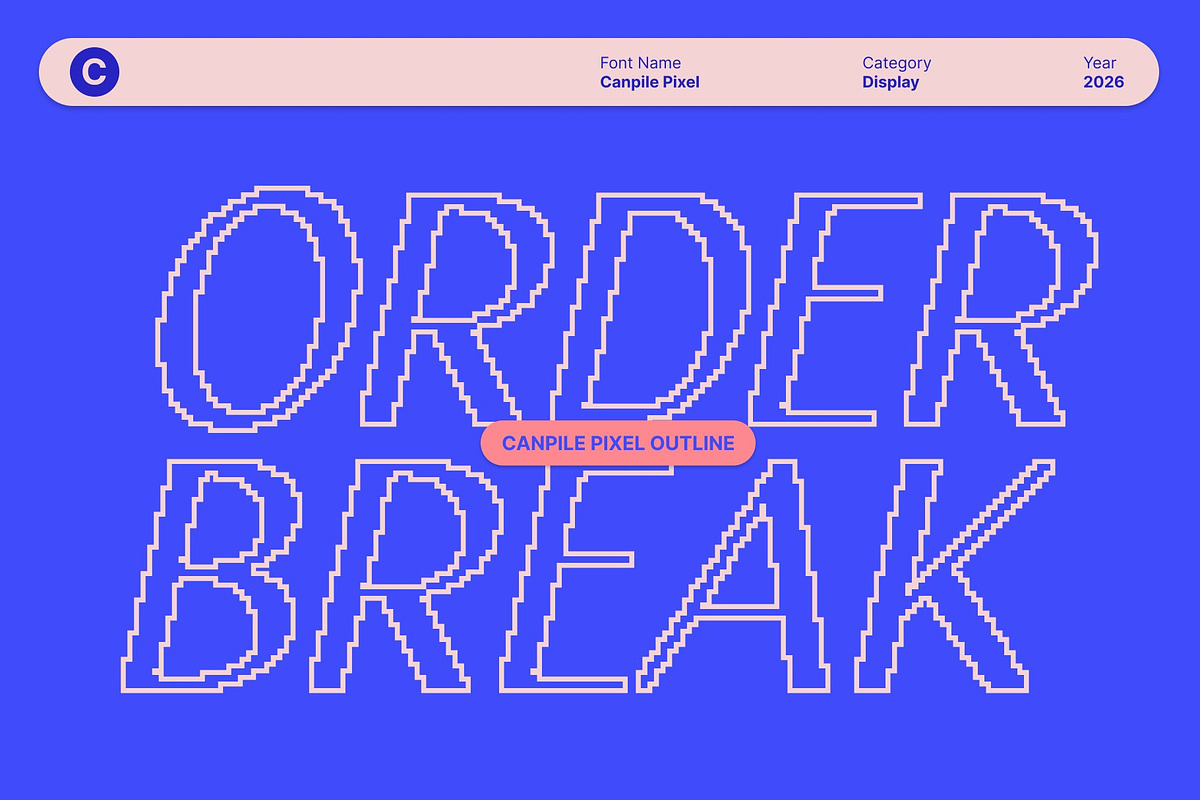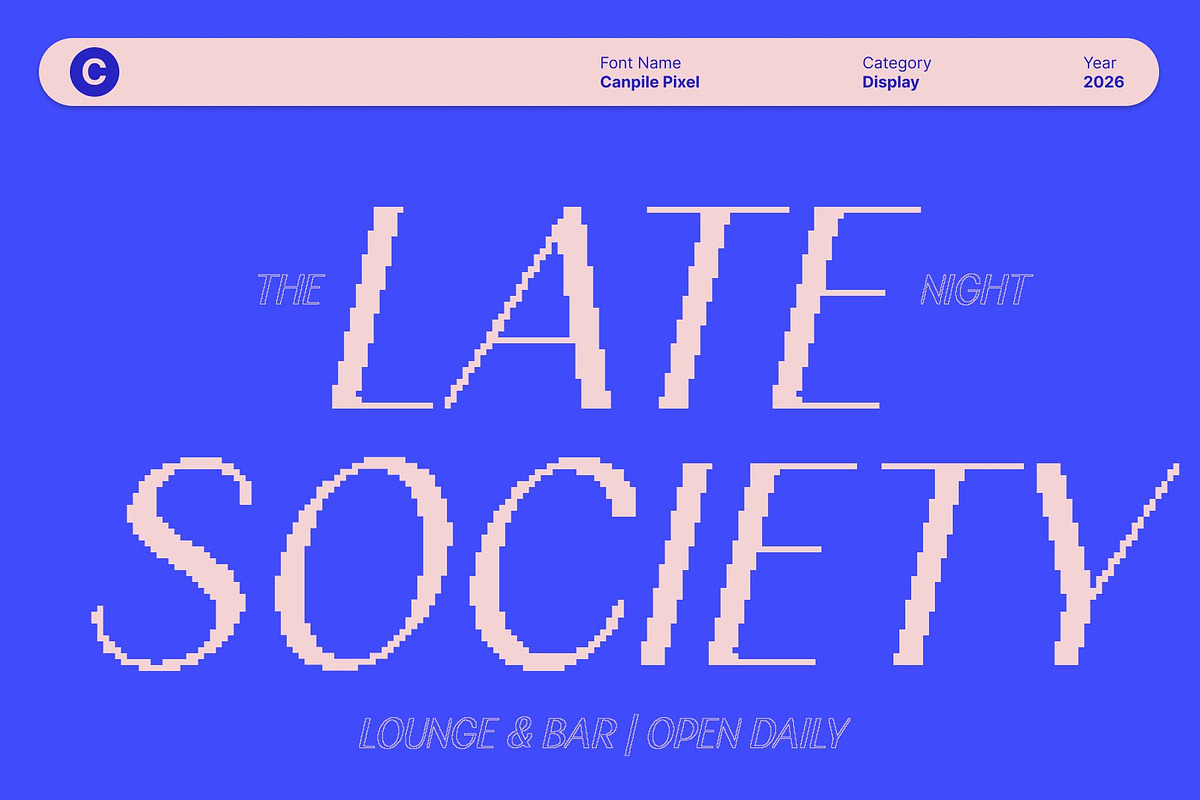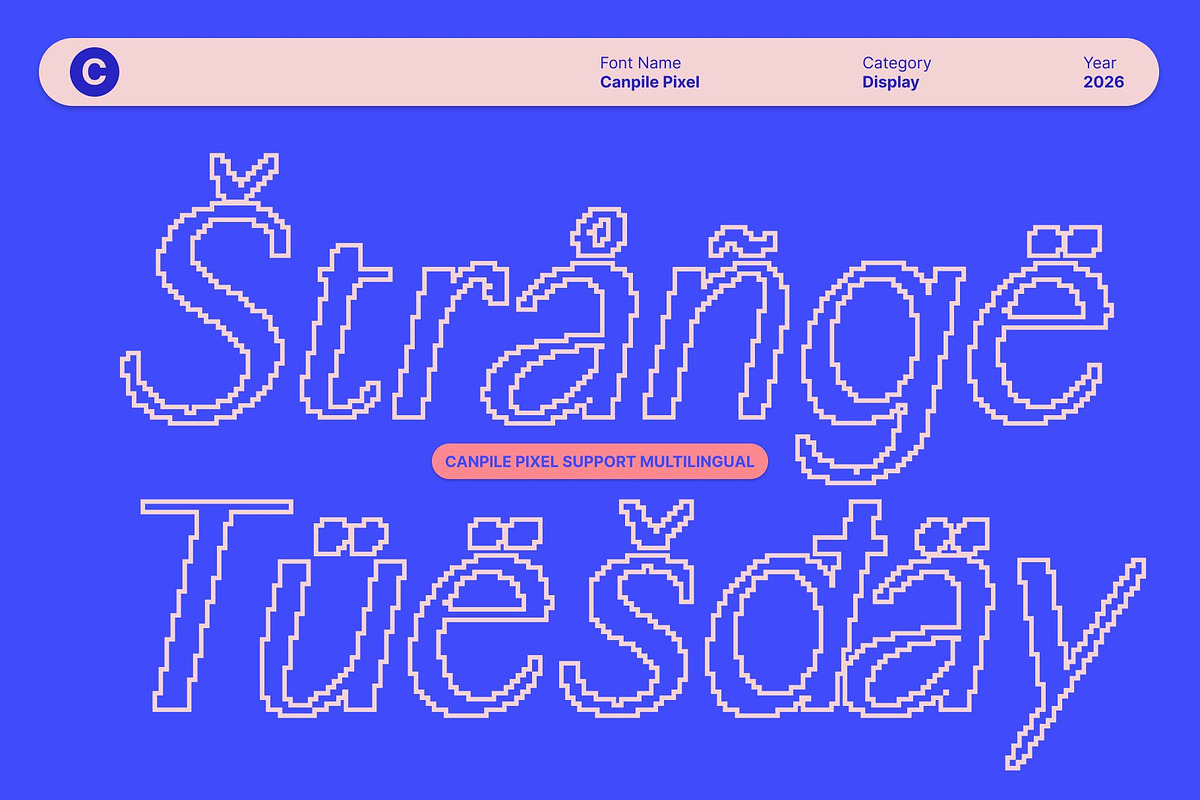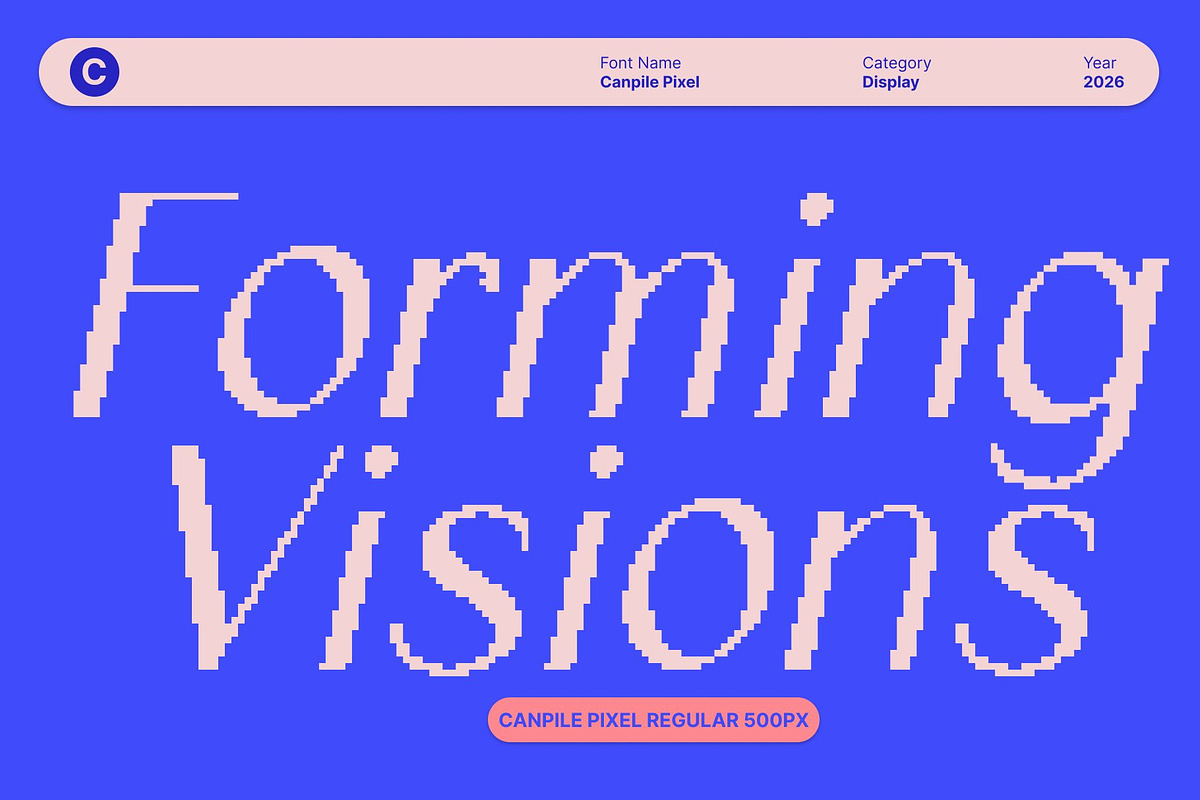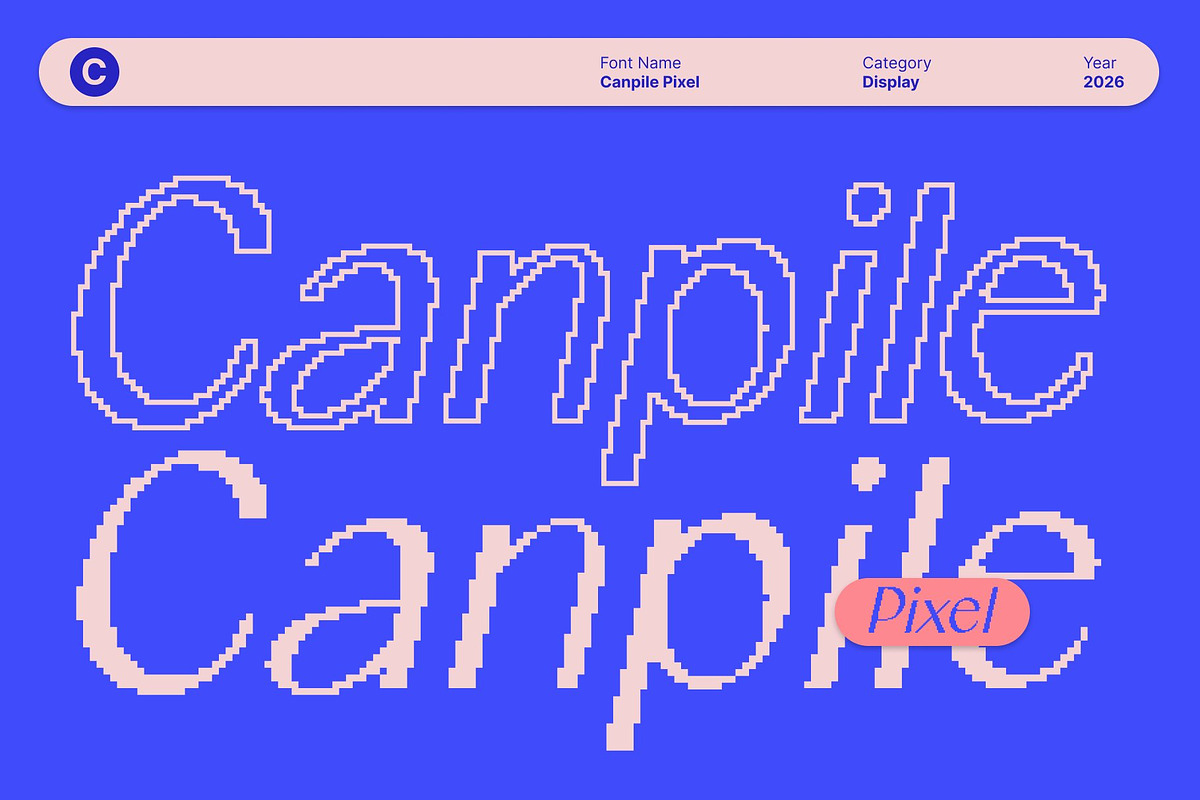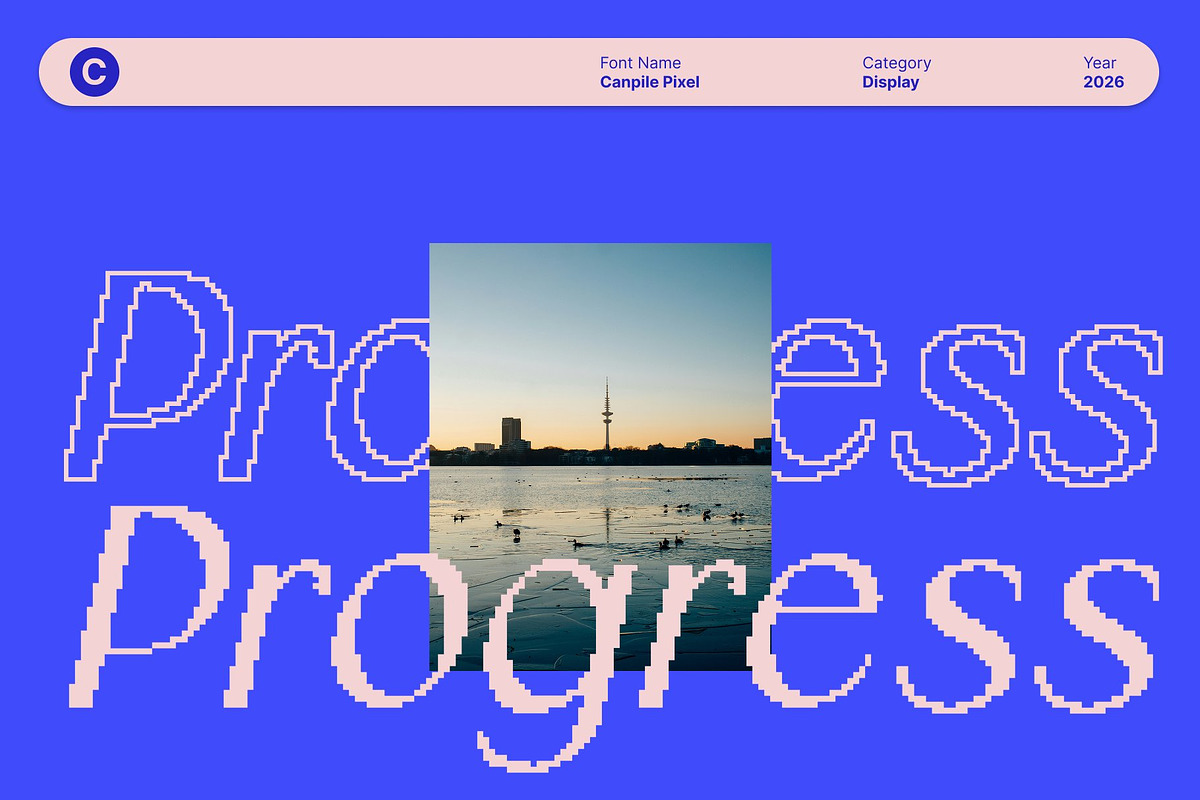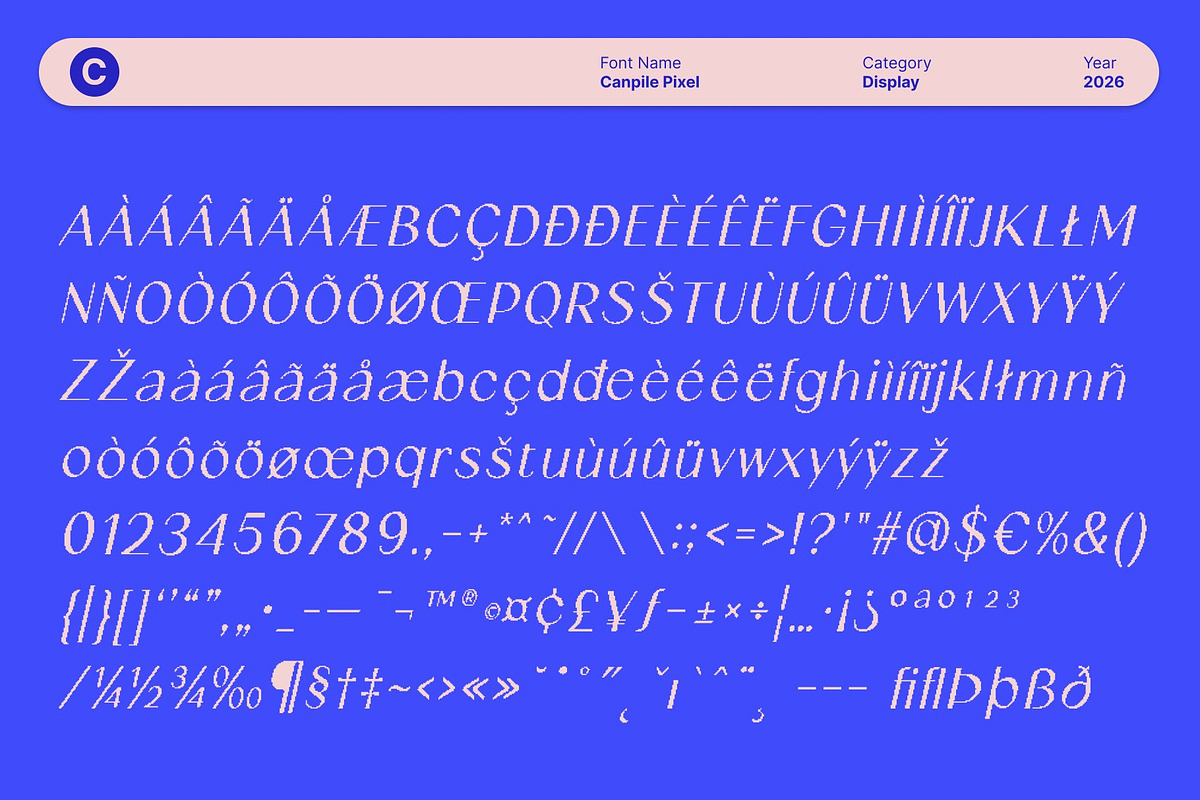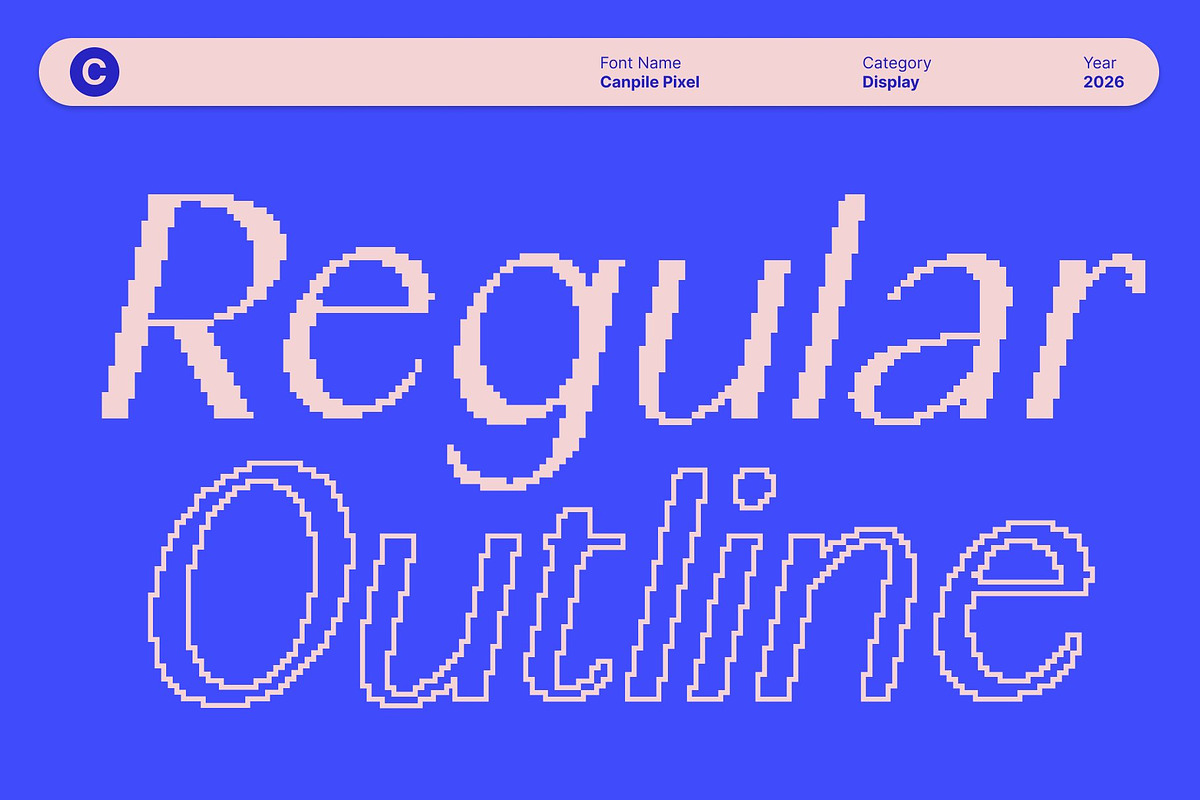
Canpile Pixel
Canpile Pixel – A Modern Marvel of Typography
Stylish Simplicity with Pixel Precision This is a modern sans serif font that blends minimalist simplicity with pixel-inspired detailing. Its clean, structured letterforms create a contemporary and refined appearance, perfect for editorial and digital projects that demand clarity and elegance. The pixel touch adds subtle digital character, giving the font a fresh and distinctive edge.
Versatility Across Designs From editorial layouts and magazines to branding and digital interfaces, this font adapts effortlessly to diverse design applications. Its sleek forms ensure readability and visual appeal across large headlines or compact text, making it a reliable choice for designers seeking consistency and modernity.
Elevate Your Editorial and Corporate Work This font brings sophistication and professionalism to every project. Its modern aesthetic enhances the presentation of content, ensuring designs command attention while maintaining a polished, stylish look. The font’s balanced proportions and subtle pixel influence make it equally suited for corporate communications and creative editorial designs.
A Contemporary Typography Companion More than just a font, this font serves as a versatile design partner. Combining modern sans serif elegance with pixel precision, it transforms projects into visually striking works that are both contemporary and timeless. Ideal for designers who value clarity, style, and editorial excellence.
- Canpile Pixel Regular
- Canpile Pixel Outline